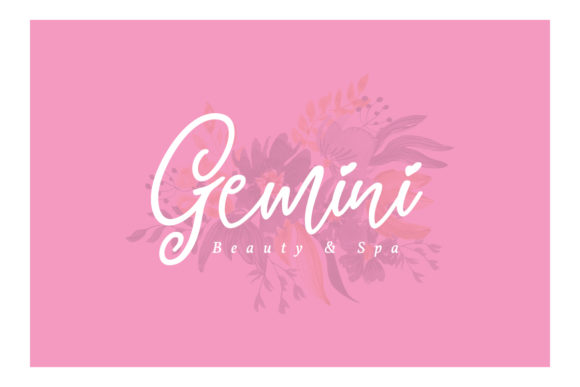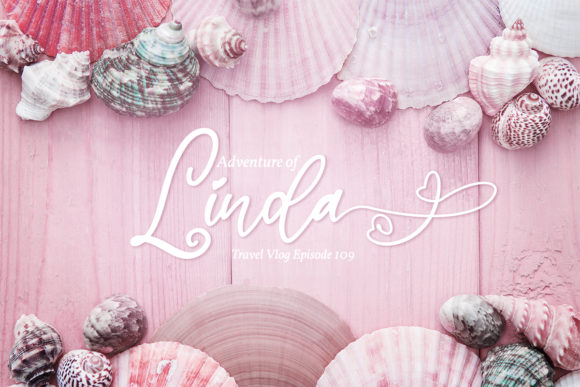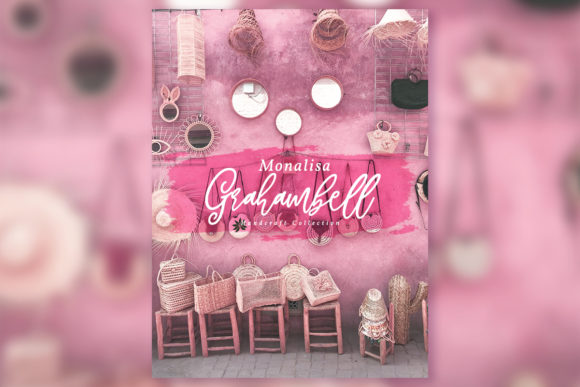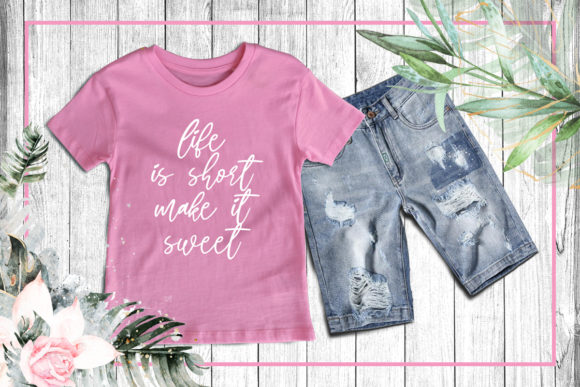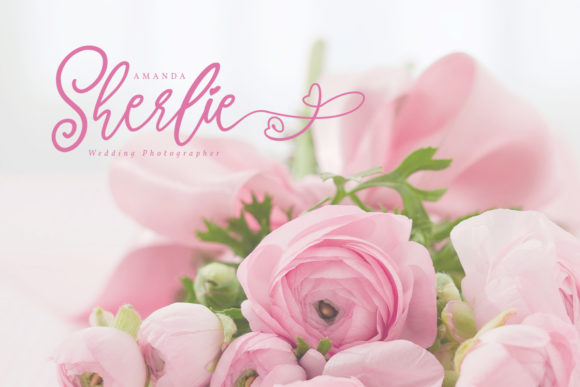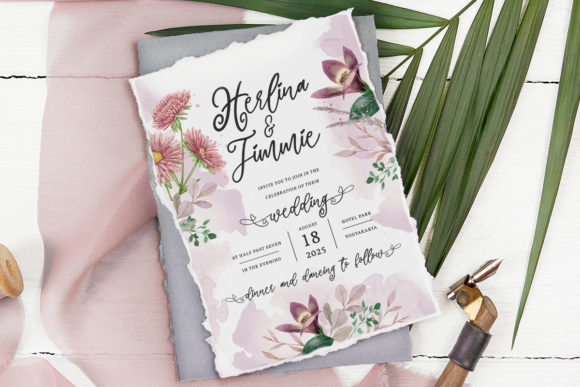
Introducing Haymie Font: The Ultimate Handwritten Script for Creative Projects
Are you a designer, crafter, or DIY enthusiast looking for a font that can add a personal touch to your creative projects? Look no further than Haymie Font, a cute and casual handwritten script that is sure to delight. With its incredibly friendly feel, gorgeous swashes, and ligatures, Haymie is the perfect choice for anyone looking to turn their creative ideas into true works of art.
What Makes Haymie Font So Special?
Key Features of Haymie Font
• Cute and Casual Handwritten Style: Haymie Font features a beautiful, handwritten style that is perfect for adding a personal touch to your designs.
• Gorgeous Swashes and Ligatures: With a range of gorgeous swashes and ligatures, Haymie Font is perfect for creating beautiful, eye-catching designs.
• Alternate Glyphs and Ligatures: This font features a wealth of special features, including alternate glyphs and ligatures, giving you even more creative options.
Haymie Font is perfect for designers and crafters who want to add a personal touch to their creative projects. Whether you’re creating social media graphics, working on a DIY project, or designing a brand identity, Haymie Font is sure to impress. Its friendly and approachable style makes it perfect for a wide range of applications, from formal to informal.
Use Haymie Font for Your Instagram Graphics
If you’re looking for a font that will make your Instagram graphics stand out, Haymie Font is the perfect choice. Its cute and casual style is sure to grab attention, and its range of swashes and ligatures will add a touch of elegance to your designs. Whether you’re creating quotes, promotions, or simply want to add a personal touch to your posts, Haymie Font is the perfect choice.
Use Haymie Font for Your DIY Projects
Haymie Font is also perfect for DIY enthusiasts who want to add a personal touch to their projects. Whether you’re creating handmade cards, gift tags, or other craft projects, Haymie Font is sure to delight. Its beautiful, handwritten style will add a touch of warmth and personality to your creations, making them truly special.
Tips for Getting the Most Out of Haymie Font
To get the most out of Haymie Font, here are a few tips:
• Experiment with Different Swashes and Ligatures: Haymie Font features a range of gorgeous swashes and ligatures, so don’t be afraid to experiment and find the combinations that work best for your design.
• Use it with Other Fonts: Haymie Font pairs perfectly with other fonts, so don’t be afraid to get creative and try out different combinations.
• Pay Attention to Kerning and Spacing: To get the most out of Haymie Font, make sure to pay attention to kerning and spacing. This will help ensure that your design looks professional and polished.
Haymie Font is a beautiful, handwritten script that is perfect for designers, crafters, and DIY enthusiasts. With its cute and casual style, gorgeous swashes and ligatures, and PUA encoding, it’s easy to see why Haymie Font is a must-have for anyone looking to add a personal touch to their creative projects. Whether you’re working on a design project, creating social media graphics, or simply want to add a touch of elegance to your DIY creations, Haymie Font is the perfect choice.